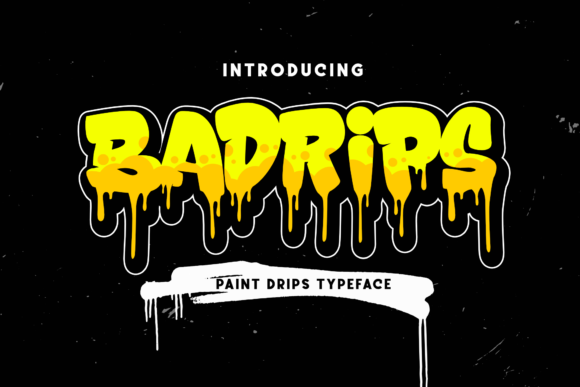
Introducing Badrips Font: A Cool Street-Styled Display Font Inspired by Graffiti Art
In the world of typography, fonts play a crucial role in conveying messages, expressing emotions, and creating visual identities. For designers, artists, and creatives, having access to a diverse library of fonts is essential to bring their ideas to life. One such font that has been making waves in the design community is Badrips Font, a cool street-styled display font inspired by the vibrant and dynamic world of graffiti art.
What is Badrips Font?
Badrips Font is a unique and stylish display font that captures the essence of street art and graffiti culture. With its bold, edgy, and urban feel, this font is perfect for creating eye-catching designs, logos, posters, and artwork that demands attention. Whether you’re a designer, artist, or simply a creative enthusiast, Badrips Font is an excellent addition to your font library.
The Inspiration Behind Badrips Font
Badrips Font draws inspiration from the world of graffiti art, which is known for its bold, colorful, and dynamic style. Graffiti art has been a staple of urban culture for decades, providing a platform for artists to express themselves, share their messages, and leave their mark on the cityscape. The font’s creator aimed to distill the essence of graffiti art into a typographic form, resulting in a font that is both authentic and stylish.
Key Features of Badrips Font
So, what makes Badrips Font stand out from the crowd? Here are some of its key features:
- Street-styled design: Badrips Font boasts a bold, edgy, and urban design that is reminiscent of graffiti art.
- Display font: This font is specifically designed for display purposes, making it perfect for headlines, titles, and attention-grabbing text.
- Unique character set: Badrips Font features a unique character set that includes uppercase and lowercase letters, numbers, and special characters.
Uses of Badrips Font
Badrips Font is an incredibly versatile font that can be used in a variety of design projects, including:
- Graffiti art: This font is perfect for creating authentic graffiti-style artwork, logos, and designs.
- Streetwear branding: Badrips Font is ideal for streetwear brands looking to create bold, eye-catching logos and designs.
- Poster design: This font is great for creating attention-grabbing posters, flyers, and brochures.
- Logos and icons: Badrips Font can be used to create unique logos and icons that demand attention.
Why You Need Badrips Font in Your Library
So, why should you consider adding Badrips Font to your library? Here are some compelling reasons:
- Elevate your designs: Badrips Font has the potential to elevate your designs, making them more visually appealing and engaging.
- Stand out from the crowd: This font’s unique design ensures that your designs stand out from the crowd, grabbing attention and making a lasting impression.
- Save time: With Badrips Font, you can save time and effort in creating custom typography, allowing you to focus on other aspects of your design.
- Versatility: This font can be used in a variety of design projects, making it an excellent addition to your font library.
In conclusion, Badrips Font is an exceptional display font that is inspired by the vibrant world of graffiti art. Its bold, edgy, and urban design makes it perfect for creating attention-grabbing designs, logos, and artwork. With its versatility, ease of use, and unique character set, Badrips Font is an excellent addition to any designer’s font library. Whether you’re a seasoned designer or a creative enthusiast, this font is sure to elevate your designs and help you stand out from the crowd.